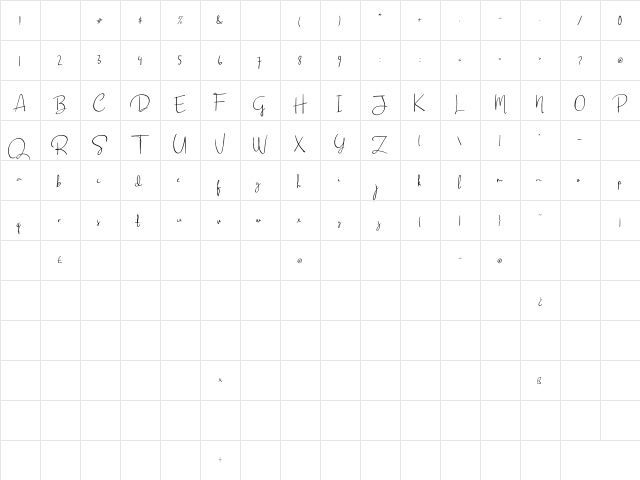
Beautiful Sunday Regular
Design Context for Beautiful Sunday Typeface
Beautiful Sunday is a composed and adaptable typeface that performs quietly and consistently across a wide range of design contexts.